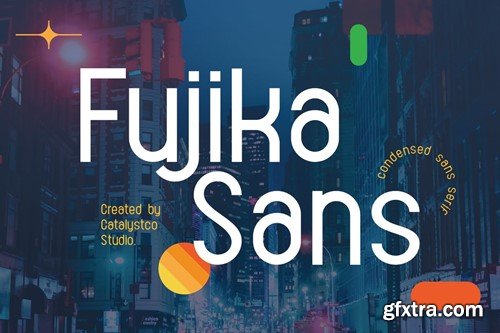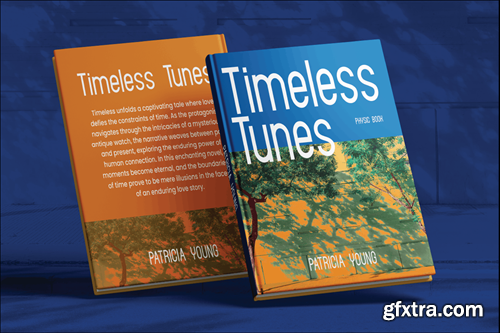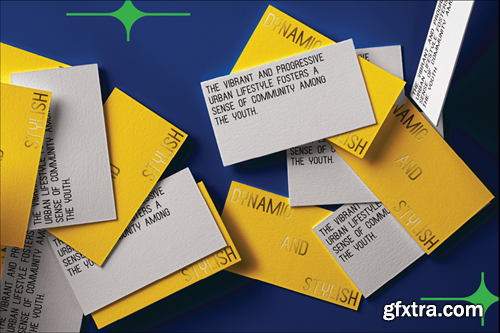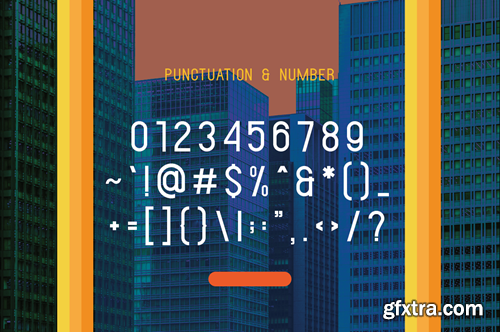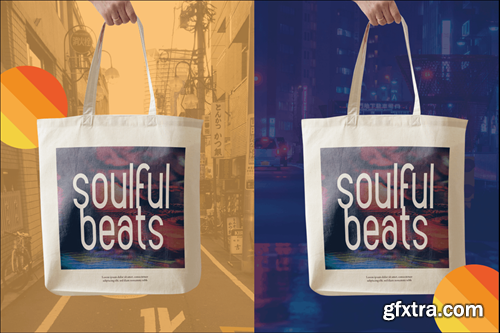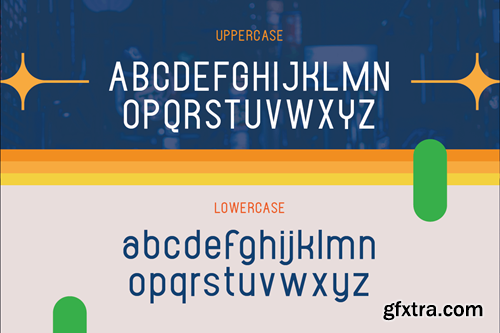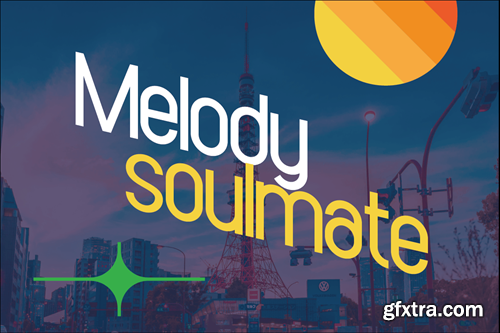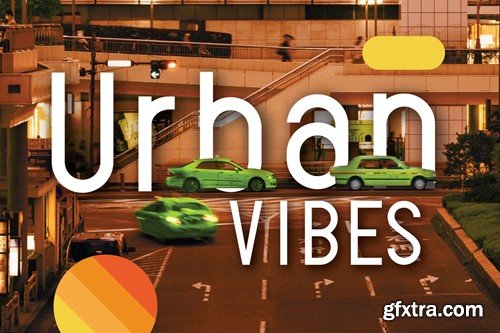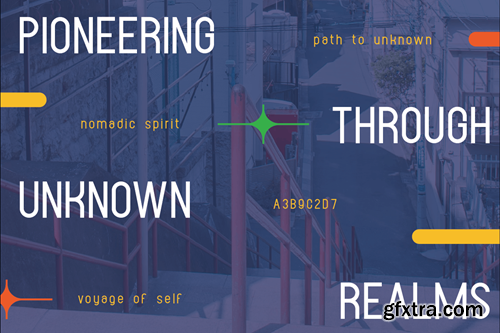
福岛 condensed sans serif 字体 XZ2TYM3
Fujika Condensed Sans Serif Font XZ2TYM3
Fujika Condensed Sans Serif Font
Fujika Condensed Sans Serif Font typeface excellent used for the manufacture quote text, logotype, header magazine, and many more.
Main Features
• Ligatures & Alternate
• Numeral & Punctuations
• Multilingual Support